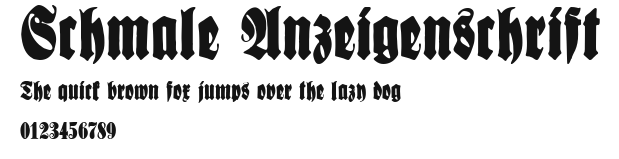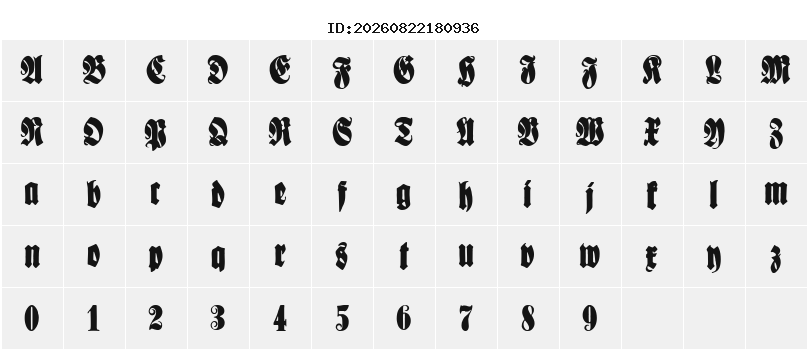
Schmale Anzeigenschrift Preview
• Font Name: Schmale Anzeigenschrift
• Full Font Name: Schmale Anzeigenschrift
• Designer: Dieter Steffmann
• Description: Schmale deutsche Anzeigenschrift von Prof. Rudolf Koch, geschaffen 1916-1923. Digitized, hinted and completed by Dieter Steffmann, Kreuztal
About Schmale Anzeigenschrift.ttf